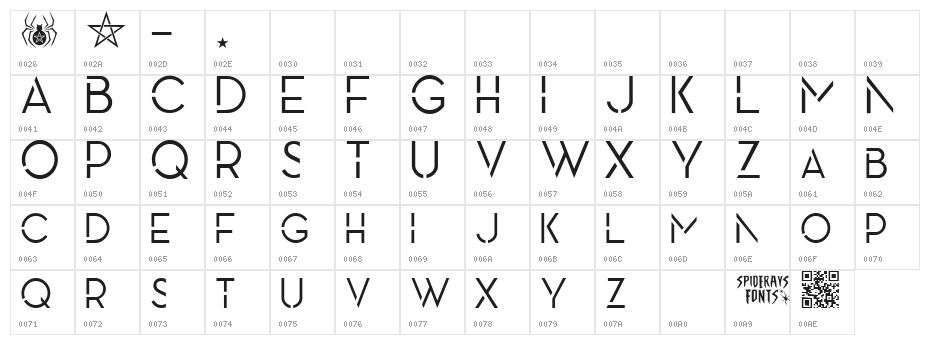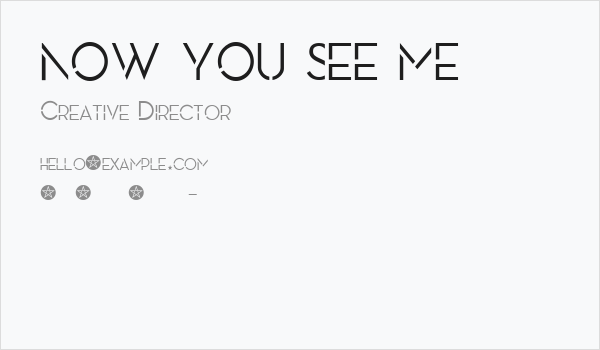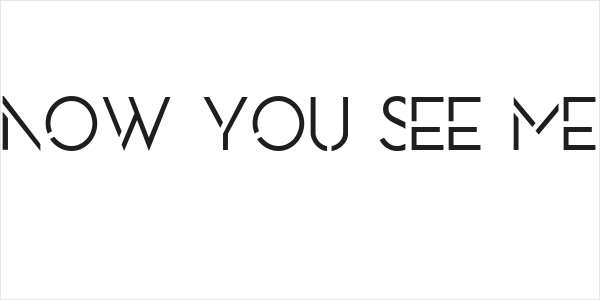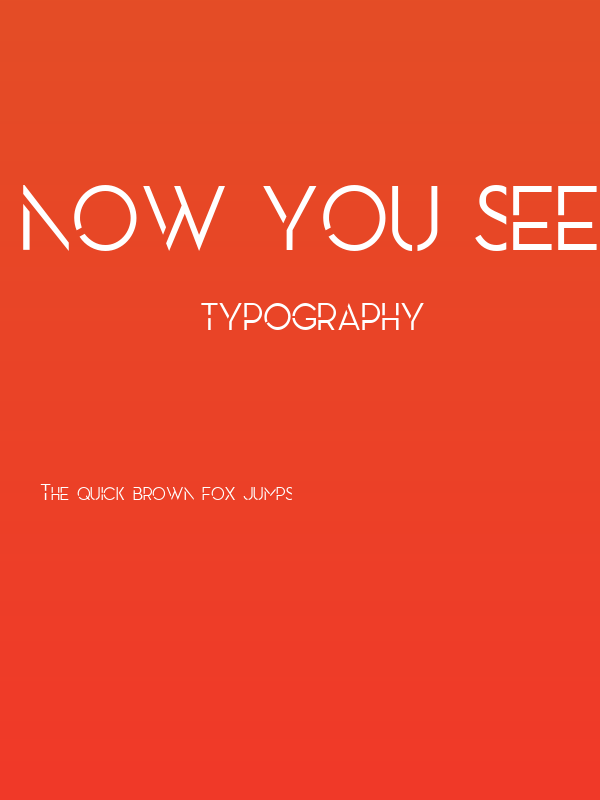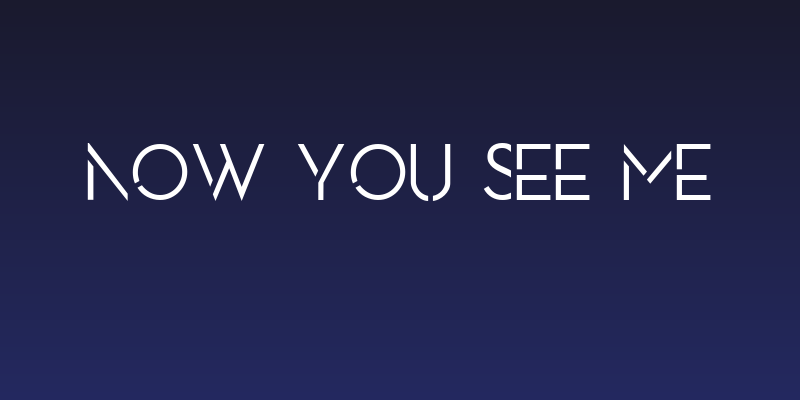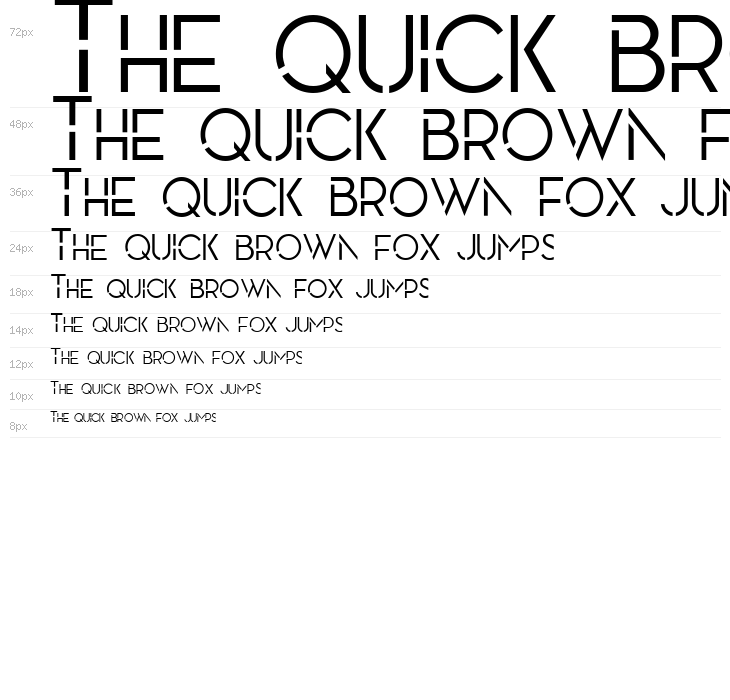
NOW YOU SEE ME Font
This font features a bold, geometric design with a futuristic flair. The characters are constructed with a combination of straight lines and sharp angles, giving it a modern and edgy appearance. The uppercase letters are uniform in height, and the strokes are consistent in width, creating a cohesive look. The font includes unique symbols such as a spider and a star, adding to its distinctive style. The overall design is clean and minimalistic, making it suitable for various creative projects.
Proposed ProjectsIdeal for sci-fi movie posters, tech company logos, and modern branding materials.